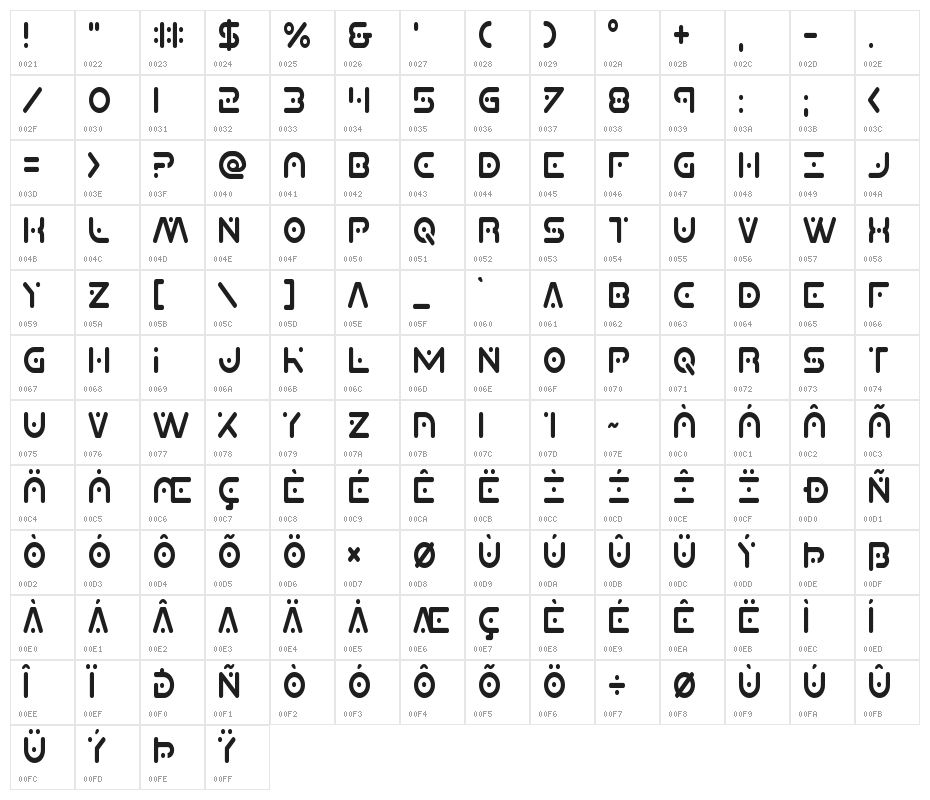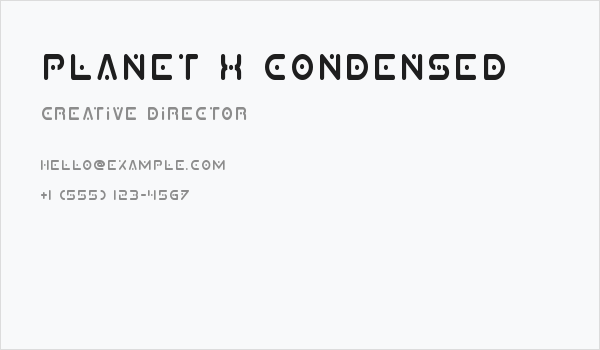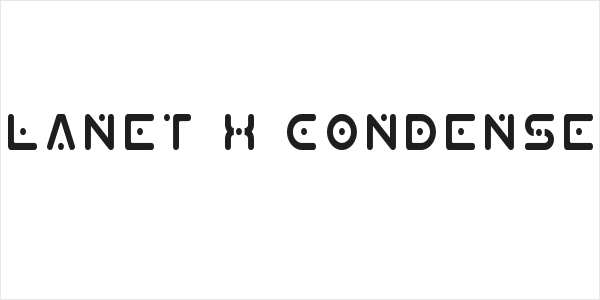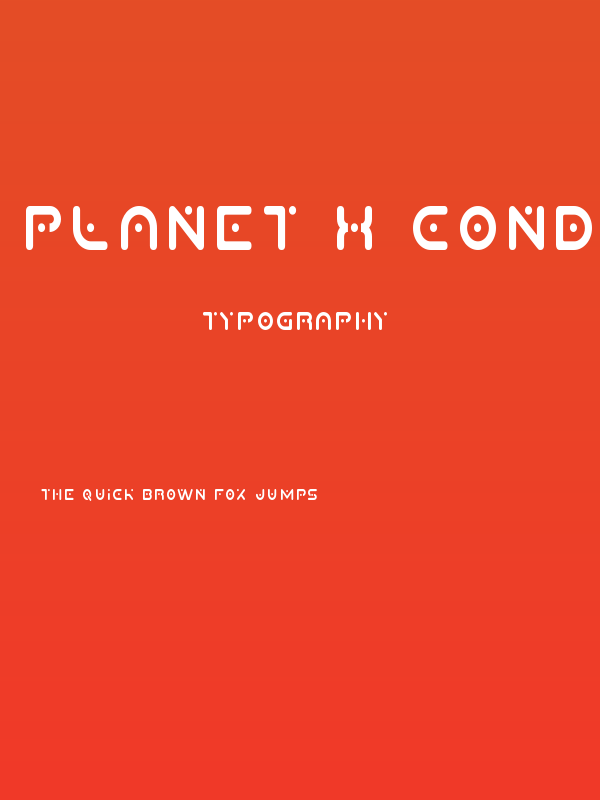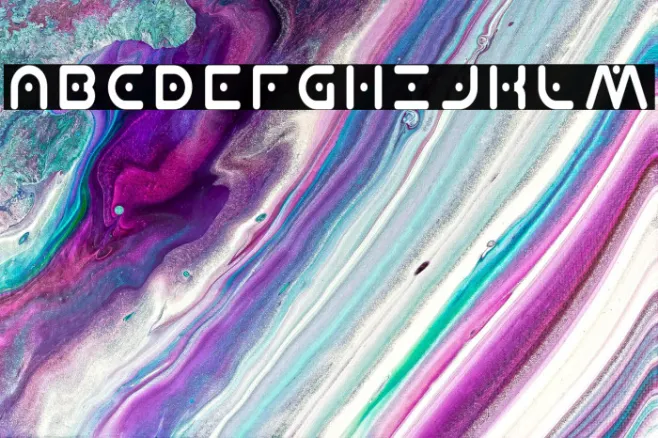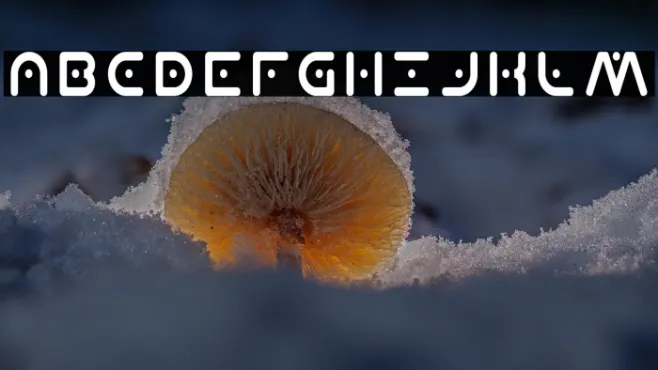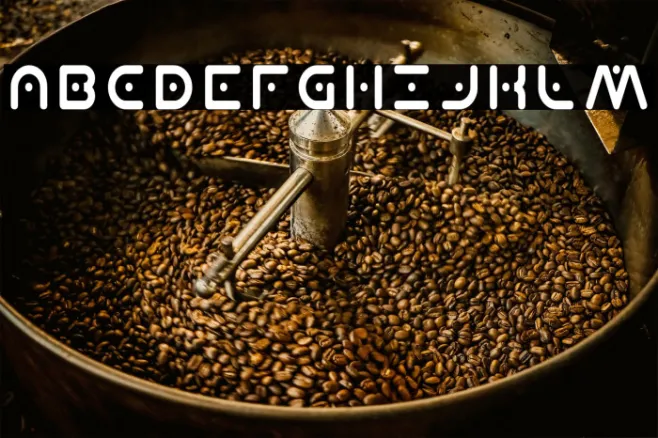
Planet X Condensed Font
Planet X Condensed Description
This futuristic and geometric font features a unique design with rounded edges and cut-out sections, giving it a modern and digital appearance. The characters are uniform in height and width, with consistent spacing that enhances readability. The font's distinct style is characterized by its minimalist approach, using negative space creatively to form each letter and number. This design choice gives it a sleek and contemporary look, suitable for tech-related projects or modern branding. The font maintains a consistent weight throughout, providing a balanced and cohesive visual experience.
| Proposed Projects | Ideal for technology branding, digital interfaces, futuristic posters, and sci-fi themed projects. |